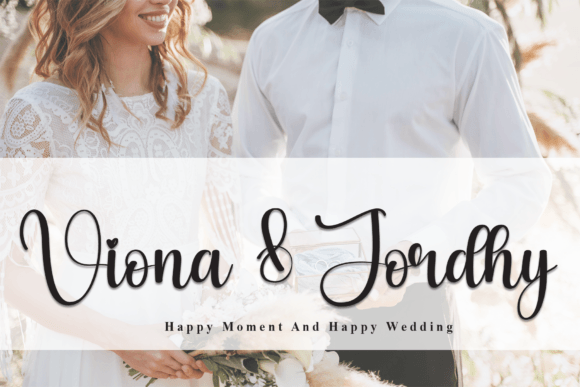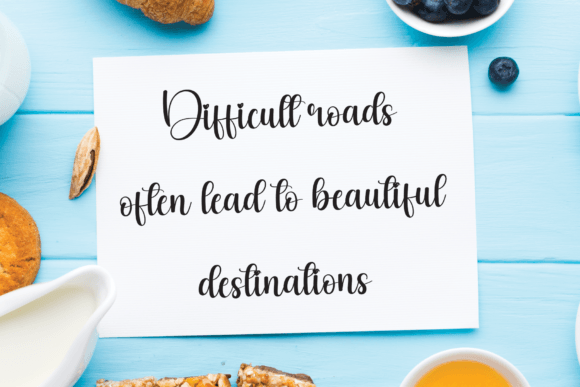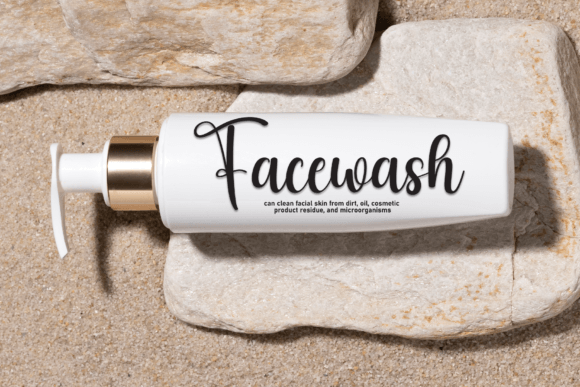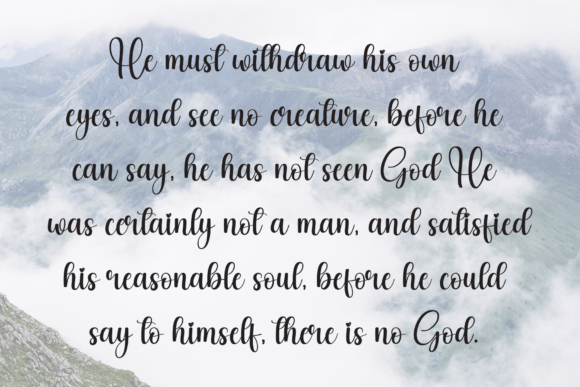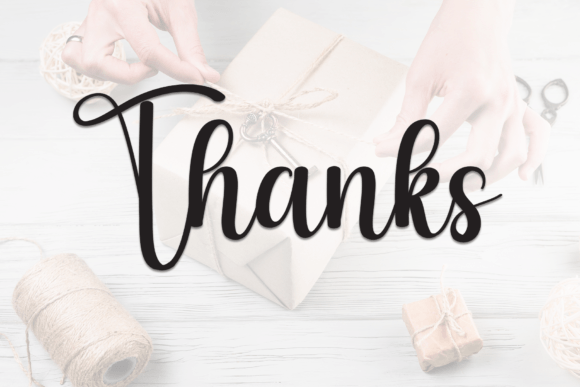
Introducing Handmade: The Enchantingly Charming Handwritten Font
Are you tired of using the same old fonts in your designs? Look no further! We’re thrilled to introduce Handmade, a delightful and playful handwritten font that’s sure to add a touch of whimsy to your creative projects. With its charming and unique character, Handmade is perfect for designers and crafters looking to add a personal touch to their work.
The Perfect Companion for Personalized Designs
Handmade is more than just a font – it’s an experience. Its enchanting and charming nature makes it a perfect companion for crafting personalized wedding invitations, warm-hearted greeting cards, or any design that beckons a sprinkle of fun! Imagine being able to create one-of-a-kind designs that speak to your audience on a personal level. With Handmade, you can do just that.
What Makes Handmade Special?
So, what sets Handmade apart from other fonts? Here are just a few features that make it truly special:
- Unique and Whimsical Design: Handmade boasts a distinctive, hand-crafted look that’s sure to capture attention. Its playful and cheerful nature makes it perfect for designs that require a touch of personality.
- Perfect for Personalized Designs: Whether you’re creating wedding invitations, greeting cards, or social media graphics, Handmade is the perfect choice for adding a personal touch to your designs.
- Easy to Read and Versatile: Despite its playful nature, Handmade is surprisingly easy to read, making it perfect for body text and captions. Plus, its versatility means it can be used in a wide range of design applications.
How to Use Handmade in Your Designs
Ready to get started with Handmade? Here are a few ideas for incorporating this charming font into your designs:
- Wedding Invitations: Create beautiful, one-of-a-kind wedding invitations that set the tone for the big day.
- Greeting Cards: Add a personal touch to your greeting cards with Handmade’s playful and cheerful design.
- Social Media Graphics: Use Handmade to create eye-catching social media graphics that stand out from the crowd.
- Branding and Packaging: Add a touch of personality to your brand’s packaging and marketing materials with Handmade.
Tips and Tricks for Getting the Most Out of Handmade
Here are a few tips and tricks for getting the most out of Handmade:
- Experiment with Colors: Handmade looks great in a variety of colors, so don’t be afraid to experiment and find the perfect hue for your design.
- Mix and Match with Other Fonts: Try pairing Handmade with other fonts to create a unique and visually appealing design.
- Use it for Headings and Titles: Handmade’s playful design makes it perfect for headings and titles, but don’t be afraid to use it for body text too!
Key Features of Handmade Font
| Font Type | Handwritten |
| Design Style | Playful, Whimsical, Charming |
| Use Cases | Wedding Invitations, Greeting Cards, Social Media Graphics, Branding and Packaging |
| Language Support | English and other languages that use the Latin alphabet |